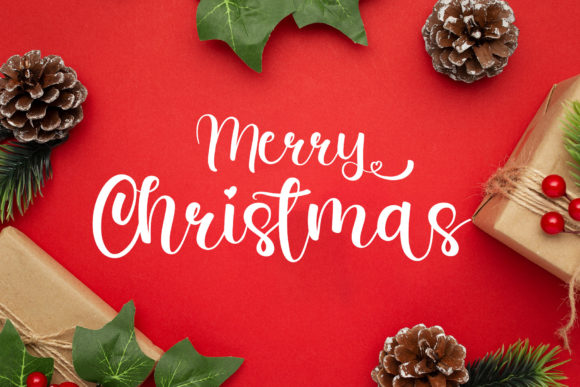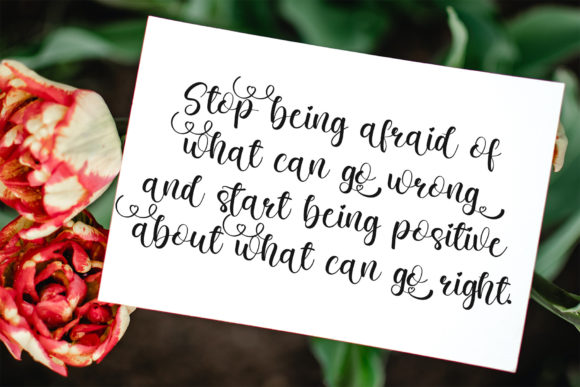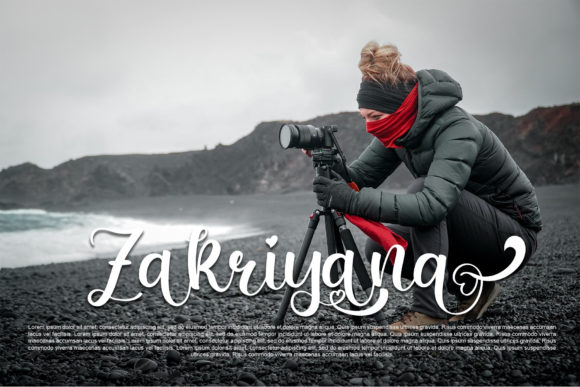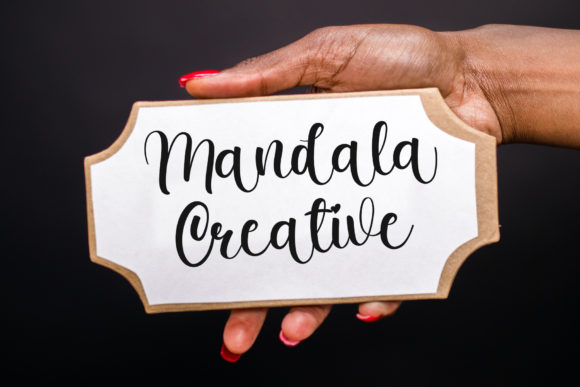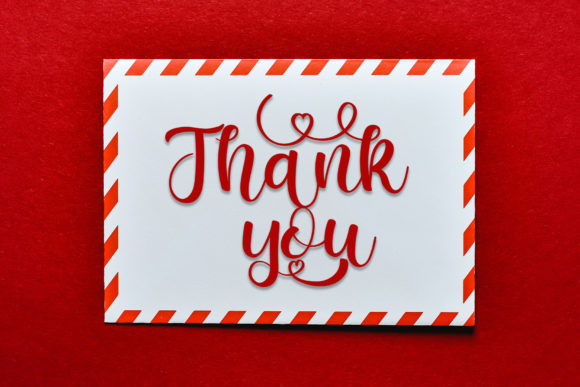
Discover the Charm of Calista Font: Elevate Your Designs with Timeless Elegance
Are you on the hunt for a font that adds a touch of elegance and sophistication to your designs? Look no further than the Calista Font. This lovely and timeless handwritten font is making waves in the design community, and for good reason. With its unique and beautiful touch, Calista is the perfect choice for creating eye-catching logos, branding, and quotes that leave a lasting impression.
Handwritten fonts have a way of adding a personal touch to any design. They evoke a sense of warmth, friendliness, and approachability that is hard to replicate with more formal fonts. But not all handwritten fonts are created equal. Some can look messy or uneven, while others can be too perfect and lack character. Calista Font strikes the perfect balance between the two, offering a beautiful and legible script that is sure to impress.
What Makes Calista Font So Special?
So, what sets Calista Font apart from other fonts on the market? For starters, every letter has a unique and beautiful touch that gives the font its distinctive charm. From the flowing curves of the lowercase letters to the elegant swashes of the uppercase letters, Calista is a true masterpiece of font design. Whether you’re creating a logo, branding materials, or social media graphics, Calista is sure to make your design come alive.
Calista Font is incredibly versatile, making it the perfect choice for a wide range of design projects. Here are just a few ways you can use Calista to elevate your designs:
- Logos: Create a lasting impression with a custom logo that showcases your brand’s personality and style. Calista’s elegant script is perfect for creating a sophisticated and memorable logo that sets your brand apart.
- Branding: Consistency is key when it comes to branding. Use Calista Font across all your marketing materials, from business cards to brochures, to create a cohesive and recognizable brand identity.
- Quotes: Add a touch of inspiration to your social media graphics, blog posts, or marketing materials with beautifully designed quotes in Calista Font. The font’s elegant script is perfect for creating visually appealing quotes that resonate with your audience.
Tips for Using Calista Font Effectively
While Calista Font is incredibly easy to use, here are a few tips to help you get the most out of this beautiful font:
- Pair it with a sans-serif font: For maximum impact, pair Calista Font with a clean and simple sans-serif font. This will create a beautiful contrast that makes your design stand out.
- Experiment with colors: Don’t be afraid to experiment with different colors and textures to add depth and interest to your design. Calista Font looks stunning in a range of colors, from bold and bright to soft and pastel.
- Play with swashes: Calista Font comes with a range of beautiful swashes that can add an extra touch of elegance to your design. Experiment with different swashes to find the one that works best for your project.